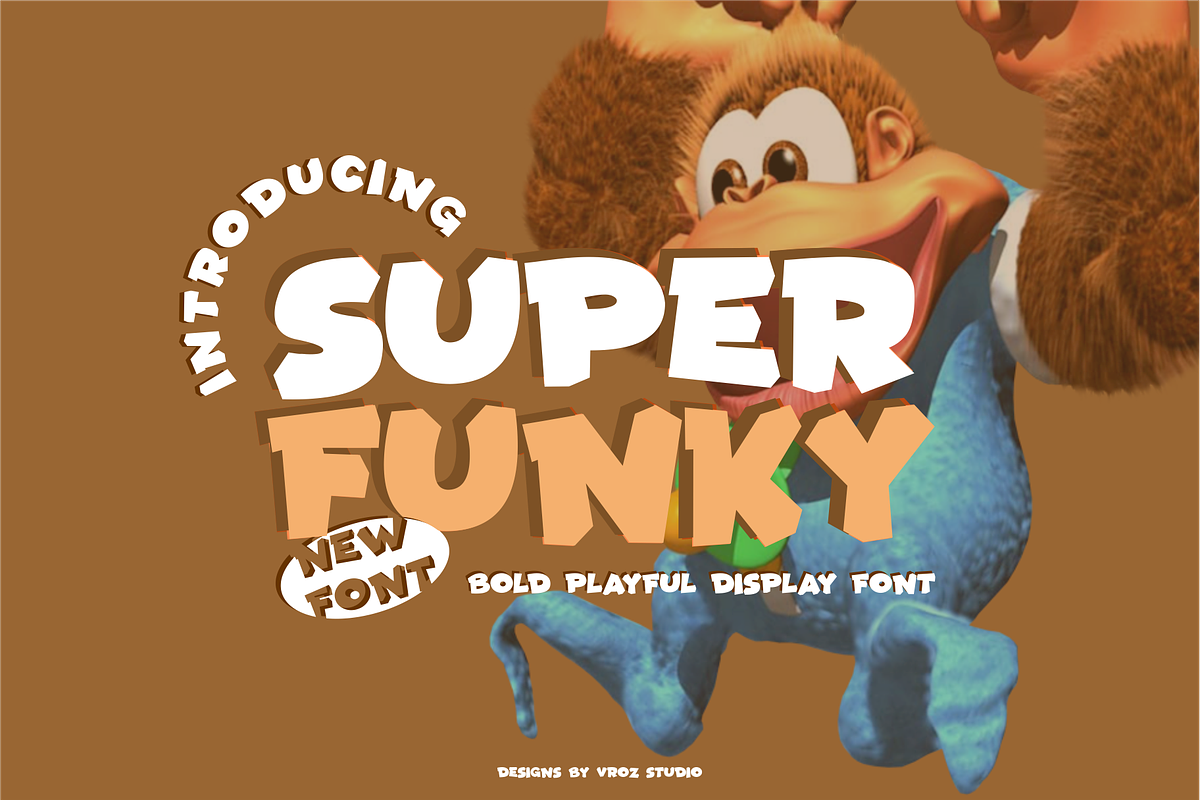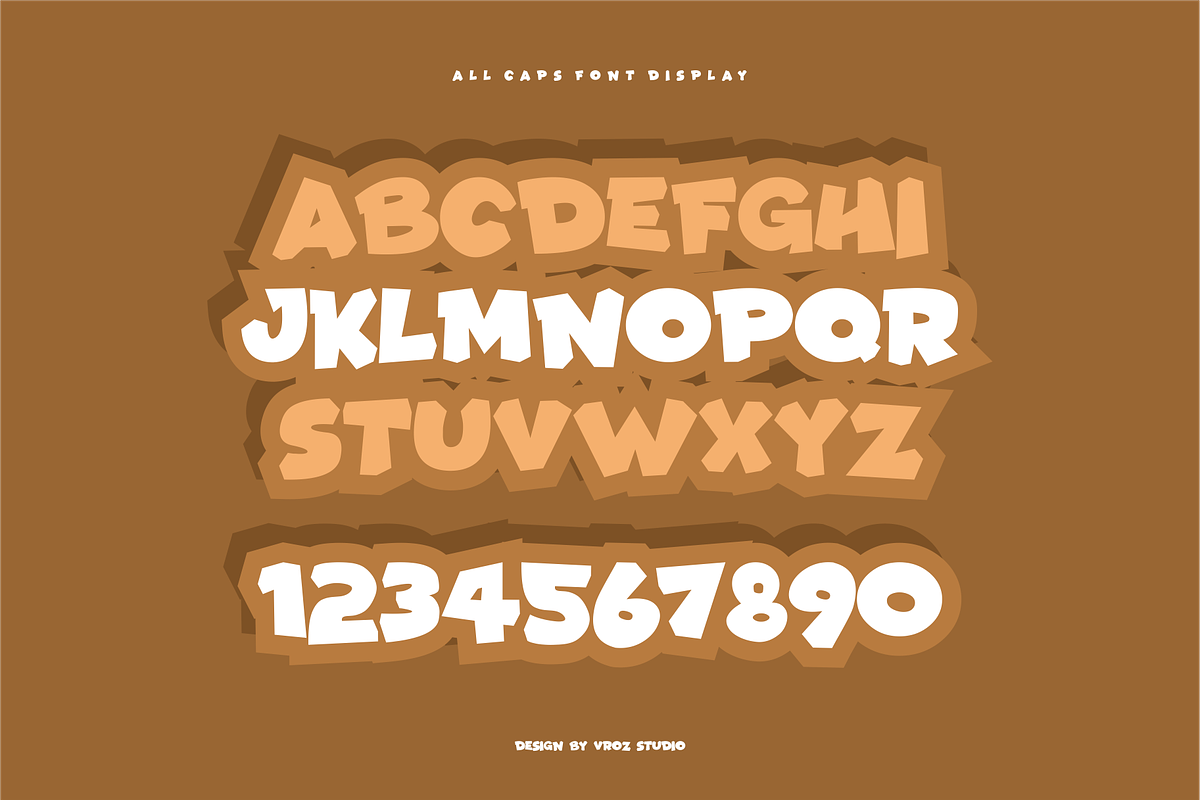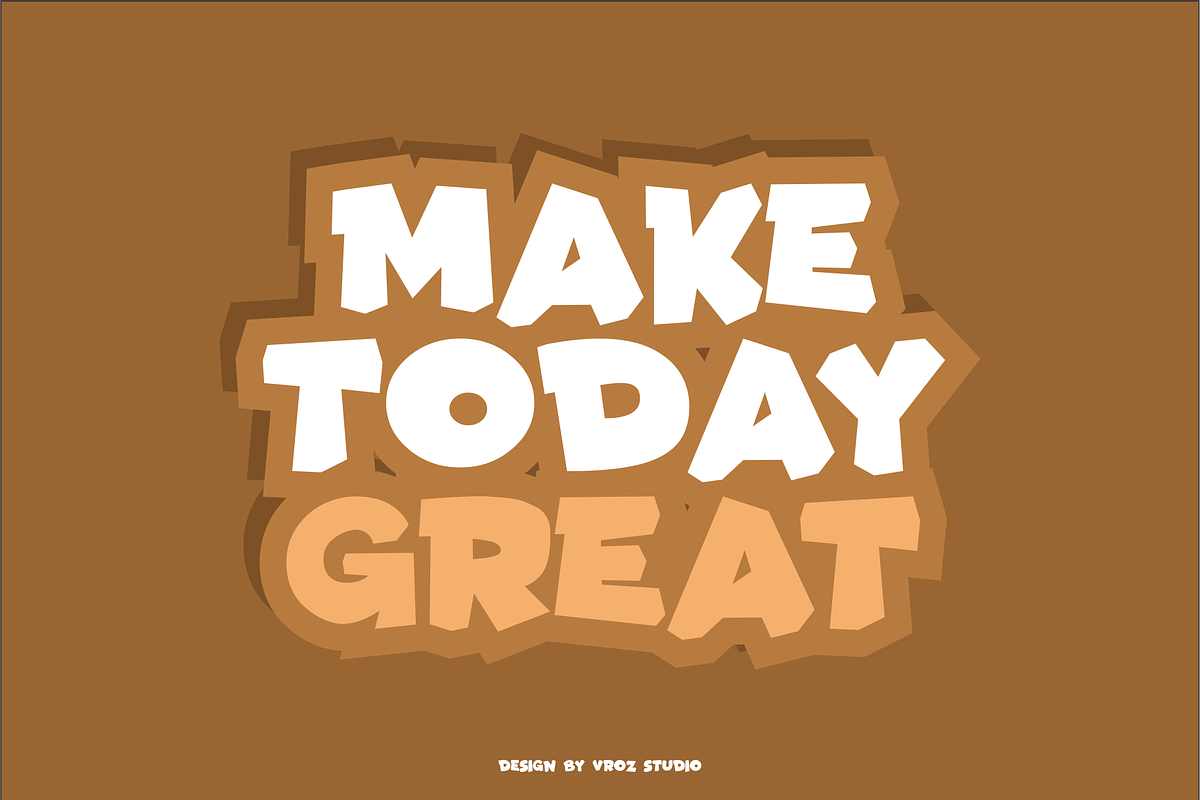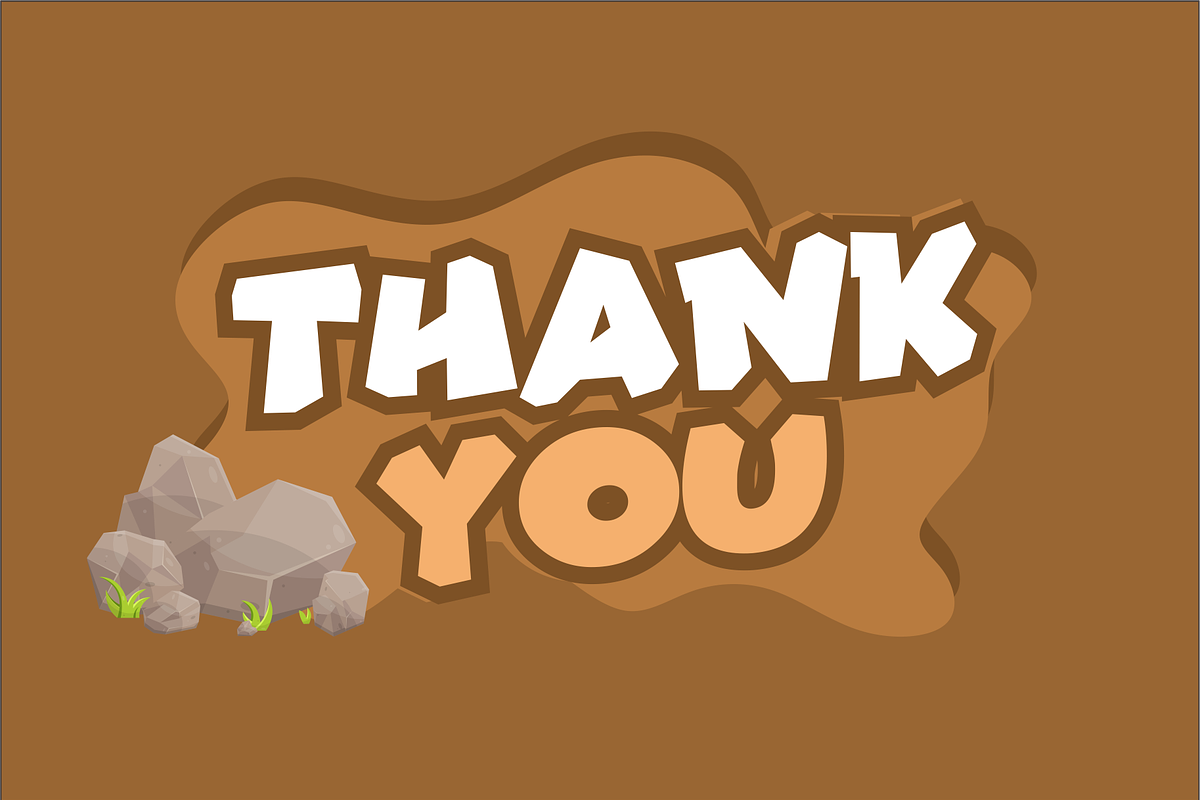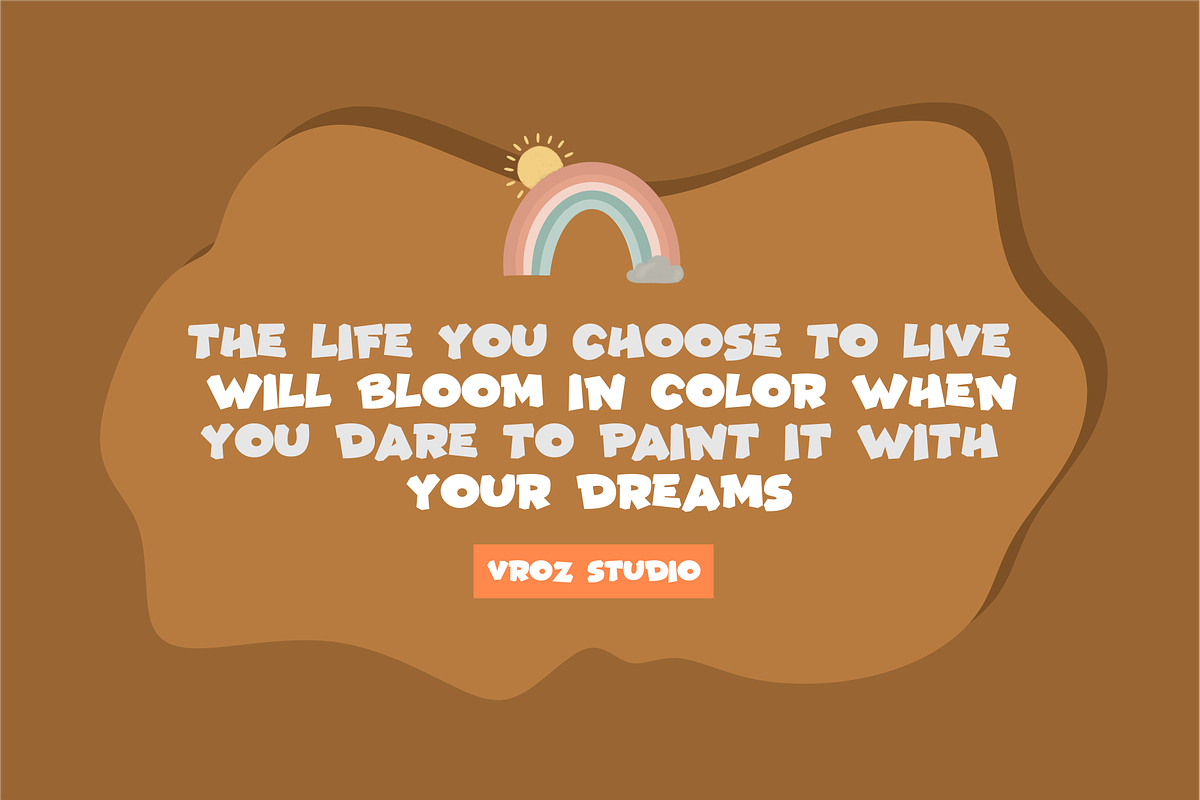
SUPER FUNKY - Bold Playful Display
SUPER FUNKY – Bold Playful Display Font
SUPER FUNKY is a loud, lively, and bold display font that bursts with fun and flair! With thick strokes, quirky curves, and a playful cartoon style, this font is made to steal attention and spark joy in every design.
Whether you're crafting eye-catching headlines, playful branding, colorful merch, or fun invitations, SUPER FUNKY brings a whole lot of attitude and personality. It’s perfect for kids' projects, games, YouTube titles, comics, stickers, posters, and anything that needs a bold and cheerful punch.
Its bubbly, expressive letters create a sense of movement and fun, making every word feel animated and exciting.
Turn up the volume on your designs with SUPER FUNKY — where bold meets playful in every letter!